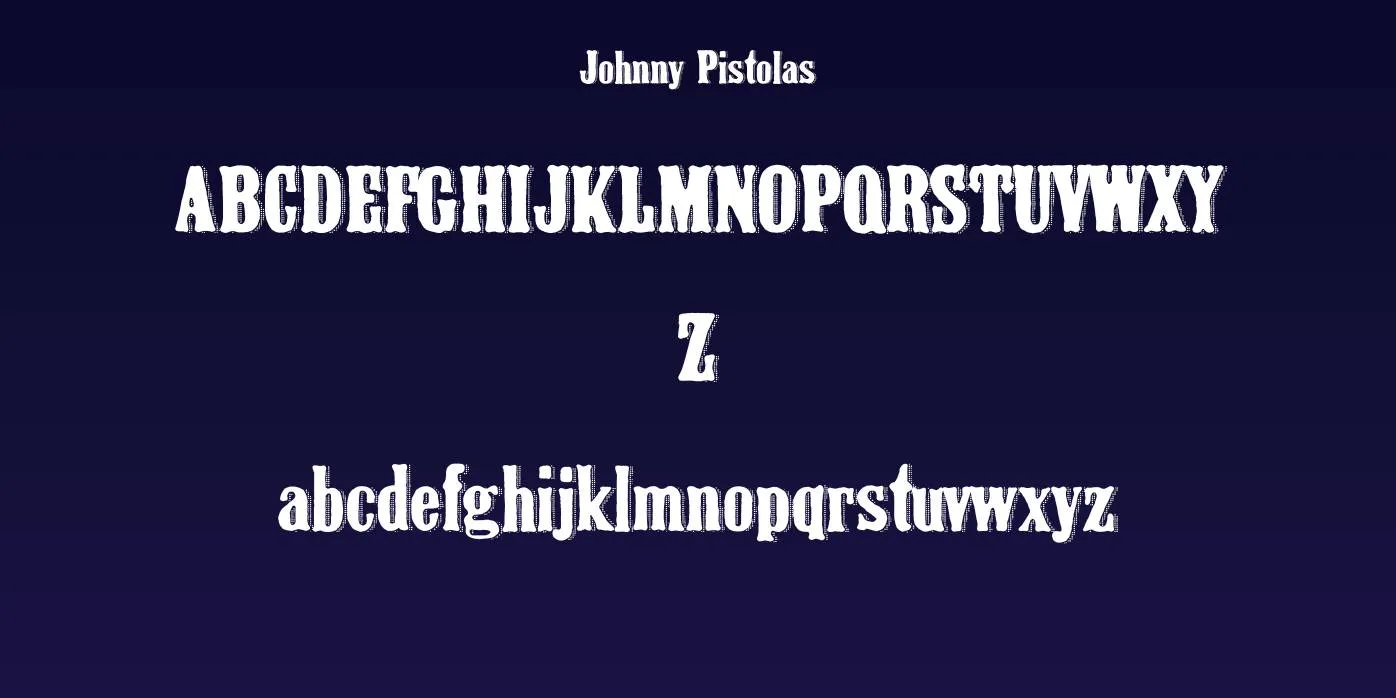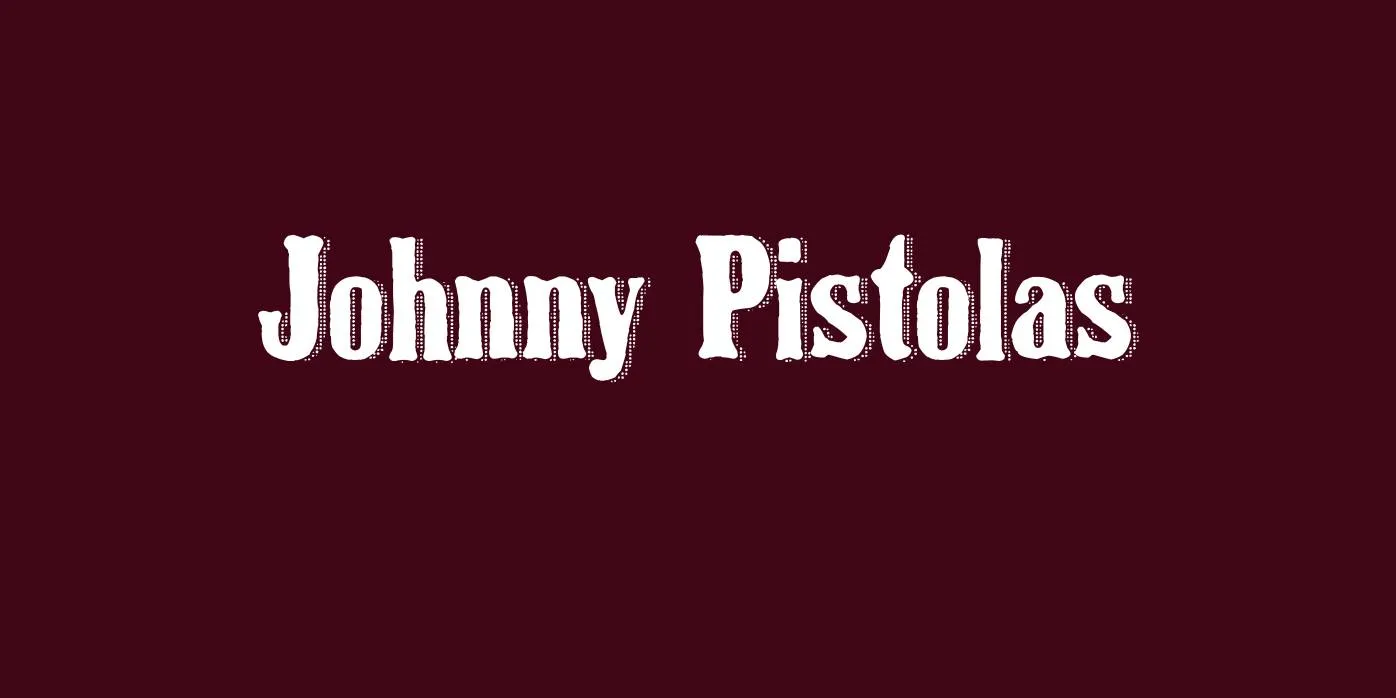
Johnny Pistolas Font
Let’s talk about a unique and interesting typeface Johnny Pistolas Font. This stunning font is designed by Woodcutter Manero. The workshop of the Woodcutter Manero is in New York City. It can be used to design many different types of projects.
It contains 274 characters, 236 glyphs, and 2048 units per Em. The weight of the font is bold and its width is condensed. Unicode supported 2.0 and BMP only. Languages supported Latin, Greek, and symbols.
Its characters are very sharp and it gives a very amazing look in all types of projects. You can download it on many different devices such as Windows, Mac, and Android for use. An online generator tool is also available for this font in which you can copy and paste your text easily and convert your simple design into a stylish look even without downloading the font. It can also used for pairing with other fonts like carlton font to give a more attractive look to your projects.
Both types of personal and commercial projects can be made by using this font. Usage It is a very unique and amazing font and you can use it for many projects. It has uppercase letters, lowercase letters, punctuations, symbols, and special characters. For making attractive banners, posters, and flyers for different types of brands you can use this font.
It can be a good choice for both print and digital media. You can use it for making different types of logos and monograms. Its alphabets have very sharp shapes and it gives a very attractive look for all projects. You can use it for branding and product packing.